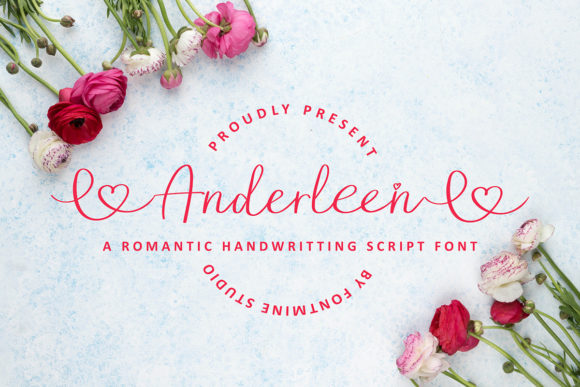
The Sweet Spot: Discovering Anderleen Font for Your Valentine’s Day Projects
Ah, Valentine’s Day – a time for love, romance, and creativity to shine. As designers, crafters, and creative hobbyists, we’re always on the lookout for that perfect font to make our projects stand out. I still remember the year I spent hours scouring font libraries for the ideal script font for a Valentine’s Day client project. The search was arduous, but the quest was worth it when I stumbled upon Anderleen Font. In this article, I’ll share my journey with Anderleen, its features, and how to make the most of this beautiful script font.
First Impressions: What I Love About Anderleen Font
Anderleen Font is a sweet and romantic script font that’s sure to capture the essence of Valentine’s Day. Here are a few things that I absolutely love about it:
• ✨ Smooth, flowing lines that exude elegance and sophistication
• 💕 Perfect for Valentine’s Day projects, including cards, invites, and letters
• 🎨 Versatile and adaptable for various design applications
A Few Quirks to Keep in Mind
While Anderleen Font is a stunning addition to any design project, there are a few minor quirks to be aware of:
• 🤔 Limited multilingual support – best suited for English or similar languages
• ⚠️ Some swashes may not work seamlessly with all design software or platforms
The Story Behind Anderleen Font
While I couldn’t find any information on the exact design story behind Anderleen Font, it’s clear that the creator aimed to craft a beautiful, romantic script font perfect for special occasions. Whether Anderleen Font was designed specifically for Valentine’s Day or simply happens to be a wonderful fit, its charm and character are undeniable.
Font Name Anderleen Font
Author fontminestudio
Is Anderleen Font suitable for body text or long-form content? Anderleen Font is a script font, which can be more challenging to read in large blocks of text. It’s best suited for headlines, titles, or short paragraphs, rather than body text or long-form content.